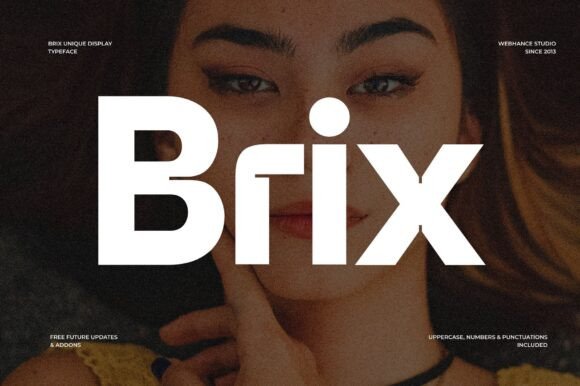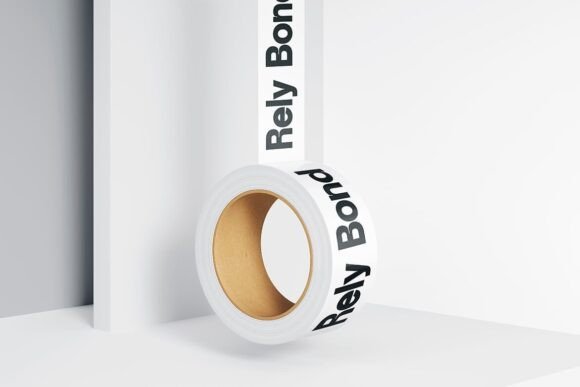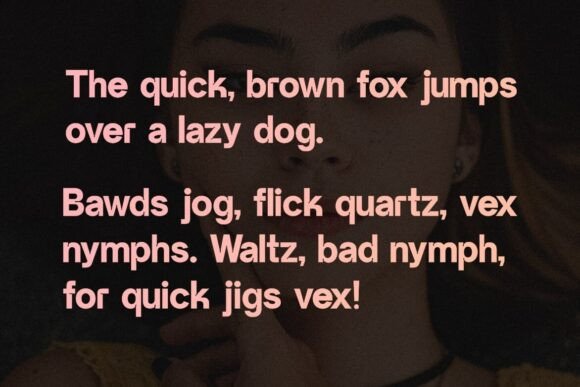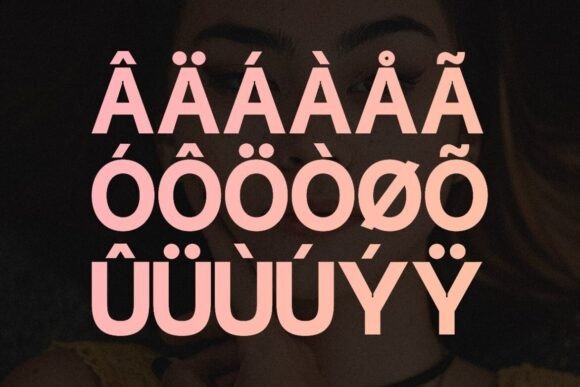
Brix Font: A Modern & Minimalist Sans Serif for Branding & Logo Design
About the Brix Font
Step up your design game with Brix Font, a font that exudes confidence and style. The Brix font family is a contemporary sans-serif typeface designed for versatility and elegance. With its clean lines, balanced proportions, and minimalist aesthetic, Brix ensures high readability across various mediums. Whether used for branding, editorial design, UI/UX interfaces, or print, this font brings a refined, world-class look to your projects.
Brix excels in headlines, branding applications, and short-form text such as posters and packaging where its clean lines and elegant proportions shine. Its minimalist nature makes it ideal for conveying sophistication and modernity. However, its less-than-optimal x-height makes it unsuitable for large blocks of body text or UI elements requiring high readability at smaller sizes.
Pairing Brix with a warmer serif typeface like Garamond for body copy creates a sophisticated contrast, balancing its modern feel with classic elegance. Alternatively, a geometric sans-serif such as Futura provides a complementary modern aesthetic, while a playful script font like Allura offers an interesting textural contrast for secondary elements, enhancing visual appeal without disrupting the overall clean feel.
Brix projects a modern and sophisticated personality, making it perfect for brands focused on technology, luxury goods, or minimalist design. Its versatility allows for use across various applications, so long as readability at smaller sizes is not the primary requirement.
Brix Font Usage Examples
Brix Font Example